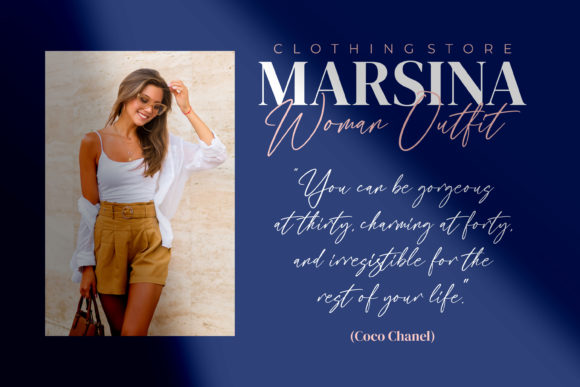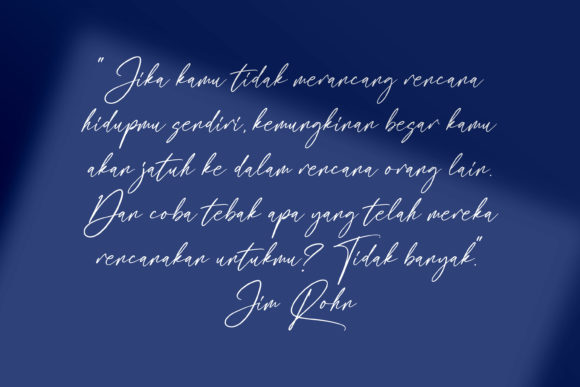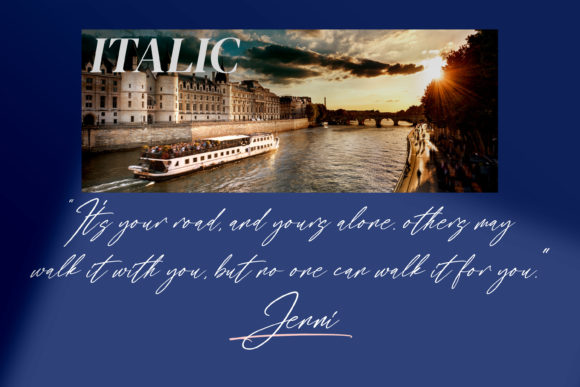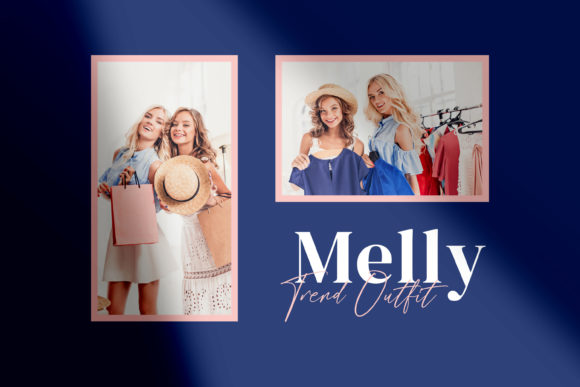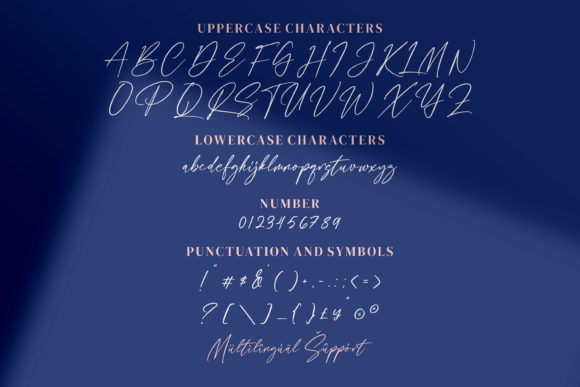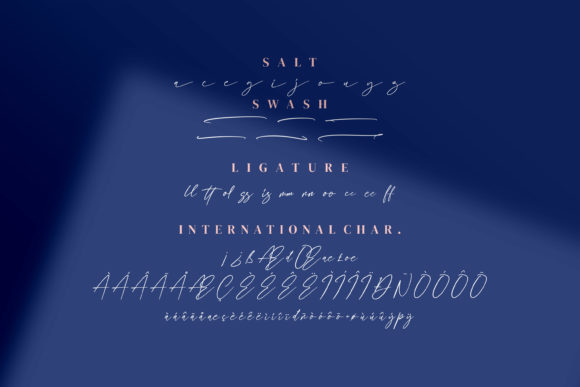
Chemistry Font: Elevate Your Designs with Elegance and Class
Are you tired of using the same old fonts in your designs? Do you want to add a touch of elegance and sophistication to your projects? Look no further than Chemistry Font, a lovely and delicate script font that is sure to refresh and revitalize your work.
What is Chemistry Font?
Chemistry Font is a beautifully crafted script font that exudes elegance and class. It was particularly designed for those who need a stunning and refreshing look to their designs. Whether you’re a designer, crafter, or DIY enthusiast, Chemistry Font is the perfect choice for anyone looking to add a touch of sophistication to their projects.
Key Features of Chemistry Font
- Elegant and Delicate: Chemistry Font features a delicate and elegant design that is perfect for a wide range of projects, from wedding invitations and stationery to branding and packaging.
- Refreshing Look: Chemistry Font has a refreshing and modern look that is sure to make your designs stand out from the crowd.
Who Can Benefit from Chemistry Font?
Chemistry Font is perfect for a wide range of designers and crafters, including:
- Graphic Designers: If you’re a graphic designer looking for a beautiful and elegant font to use in your designs, Chemistry Font is a great choice.
- Stationery Designers: If you design stationery, such as wedding invitations, greeting cards, and journals, Chemistry Font is a perfect fit.
- Crafters: If you’re a crafter who loves to create handmade projects, such as scrapbooking and DIY crafts, Chemistry Font is a great addition to your design toolkit.
- Branding and Packaging Designers: If you design branding and packaging for businesses, Chemistry Font can help you create elegant and sophisticated designs that stand out.
- Experiment with Different Sizes: Chemistry Font looks great in a wide range of sizes, from small and delicate to large and bold.
- Play with Swashes and Glyphs: Chemistry Font features a range of swashes and glyphs that you can use to add extra flair to your designs.
- Pair it with Other Fonts: Chemistry Font pairs well with a wide range of other fonts, so feel free to experiment with different combinations.
- Use it for Headings and Titles: Chemistry Font is perfect for headings and titles, where you want to make a big impact.
- Add Extra Flair with Swashes: Chemistry Font features a range of swashes that you can use to add extra flair to your designs.
- Experiment with Color: Chemistry Font looks great in a wide range of colors, so feel free to experiment and find the perfect hue for your design.